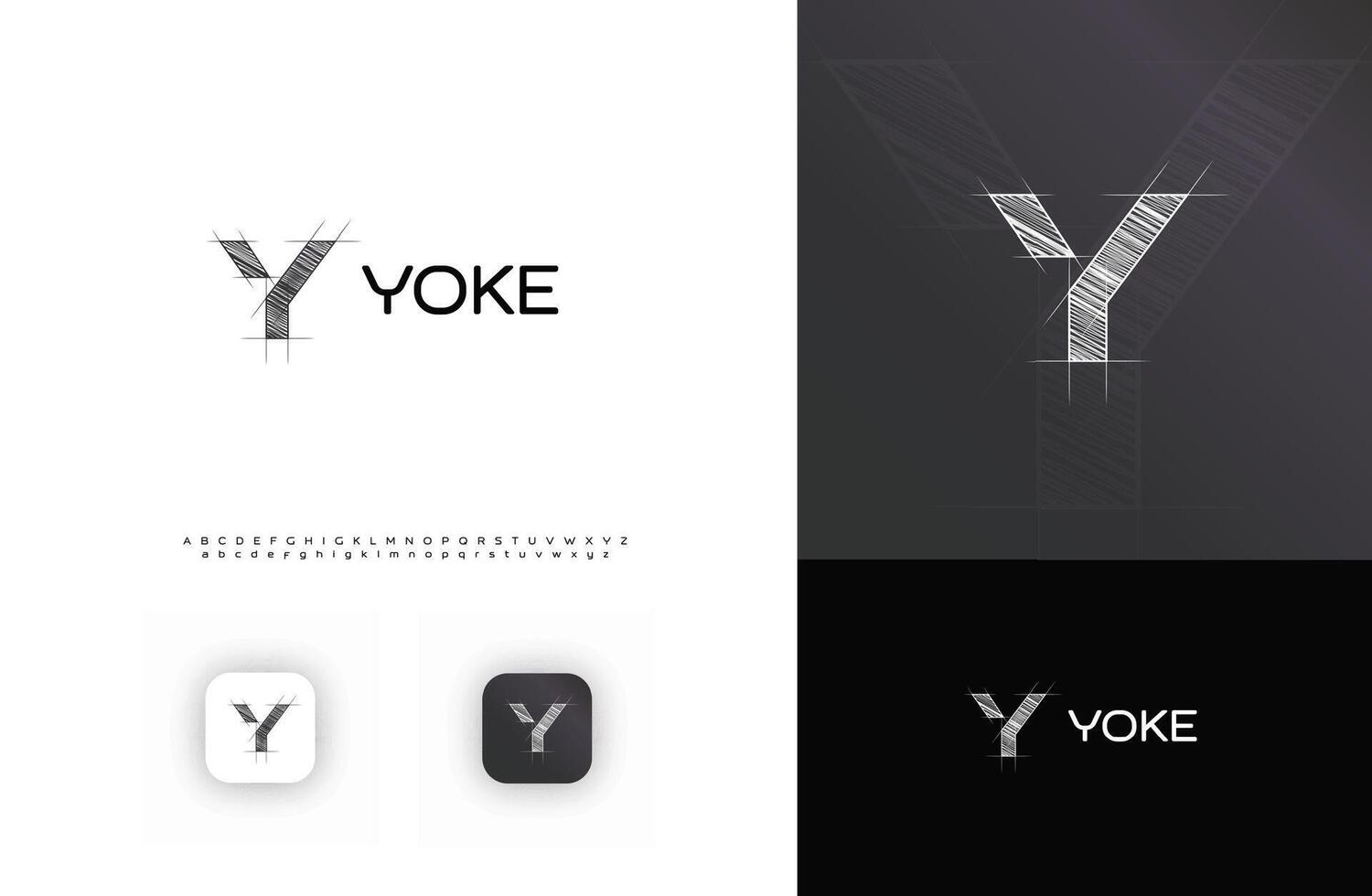
Blueprint Architect Logo, Technical Sketch Architectural LogoType, Grid Letter Y. Building Construct Company Monogram, Real Estate, Architect Engineer Branding with Alphabet Font. Illustration Pro Vector